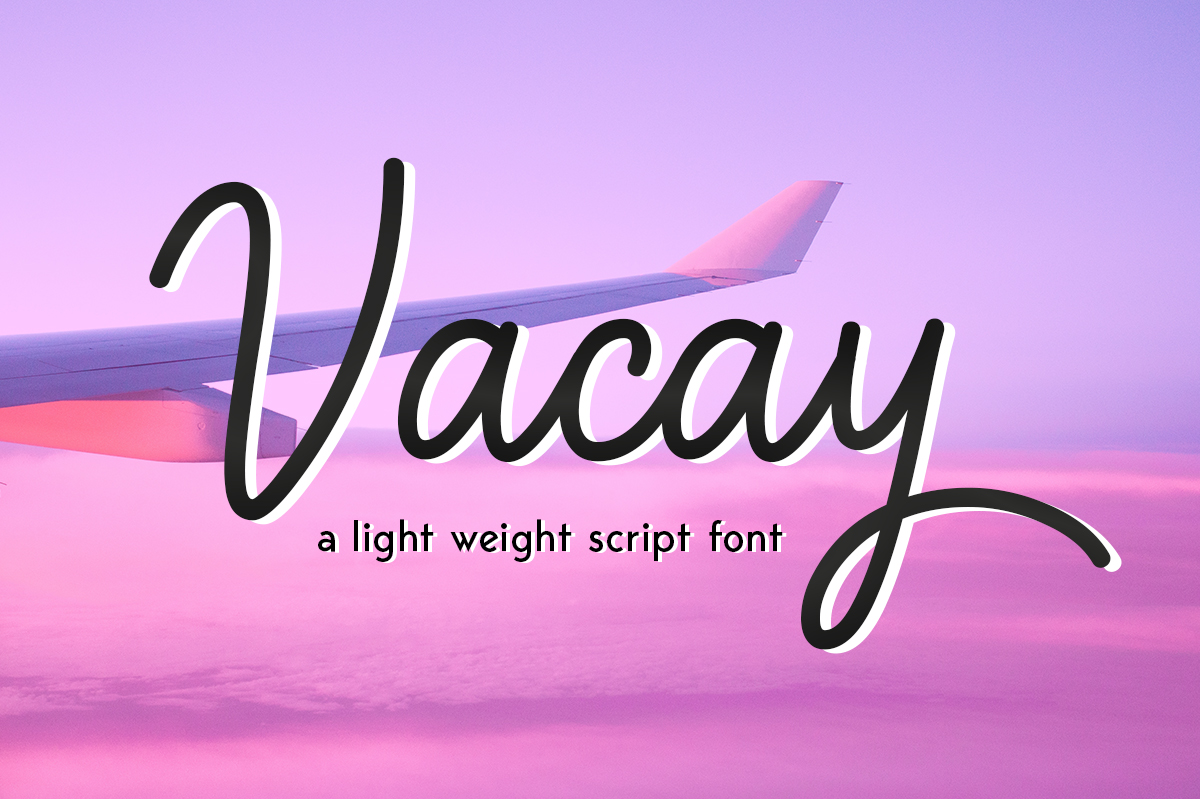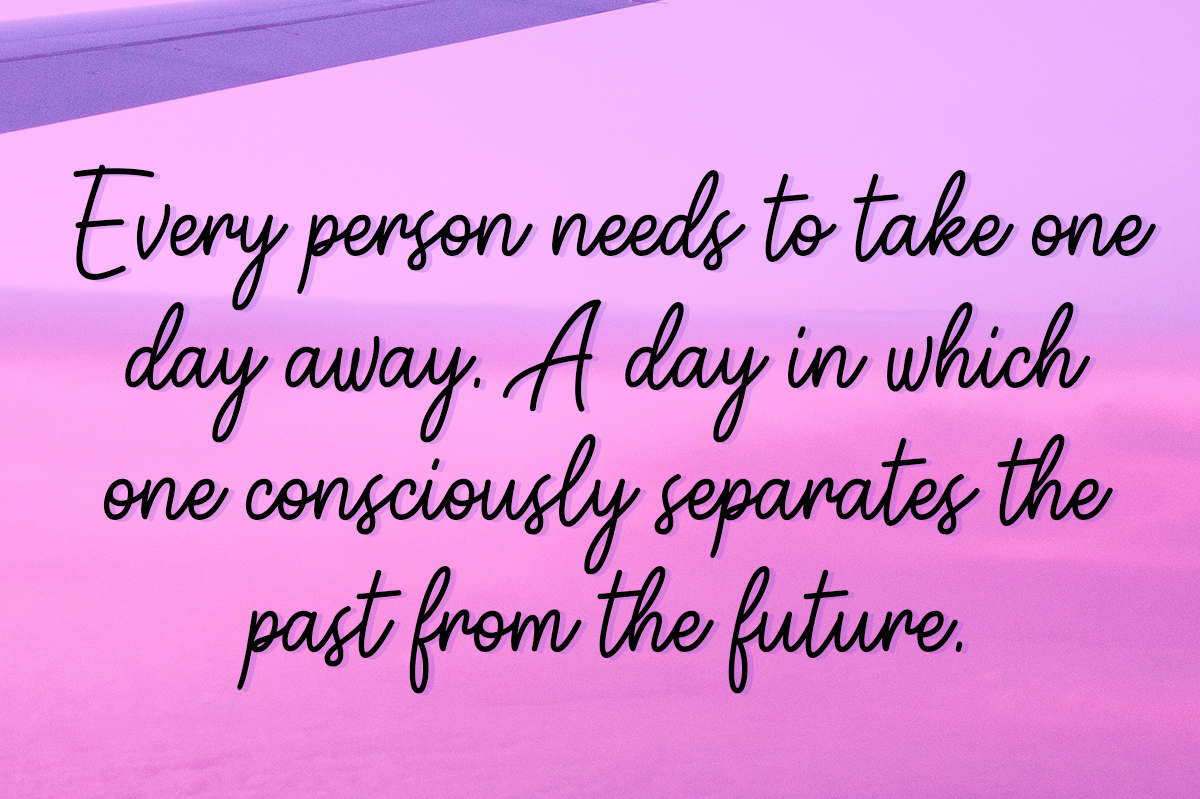
Vacay Font
About Vacay Font
Vacay is a stunning monoline script font, useful for giving your projects a streamlined and clean feel. This font is beautiful and at a great weight so that your projects retain legibility.